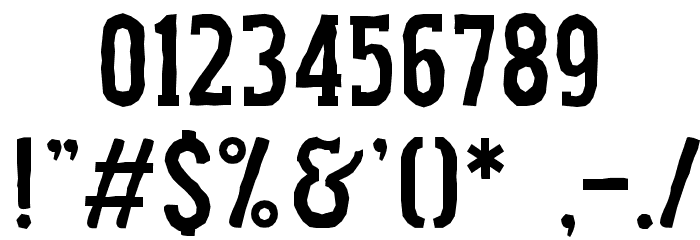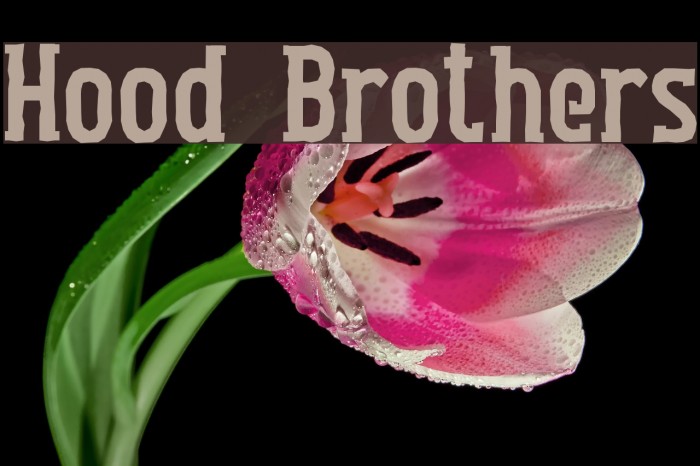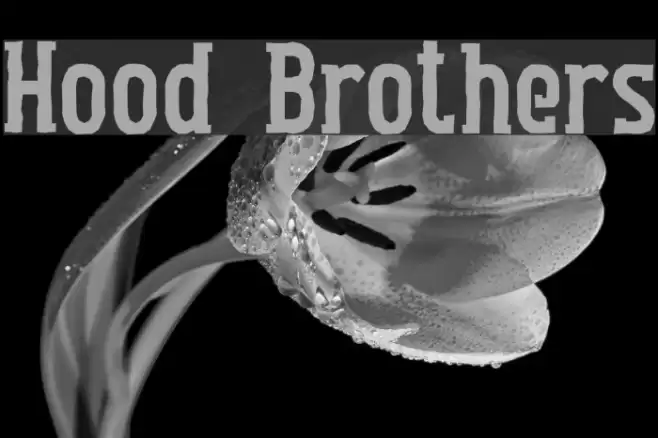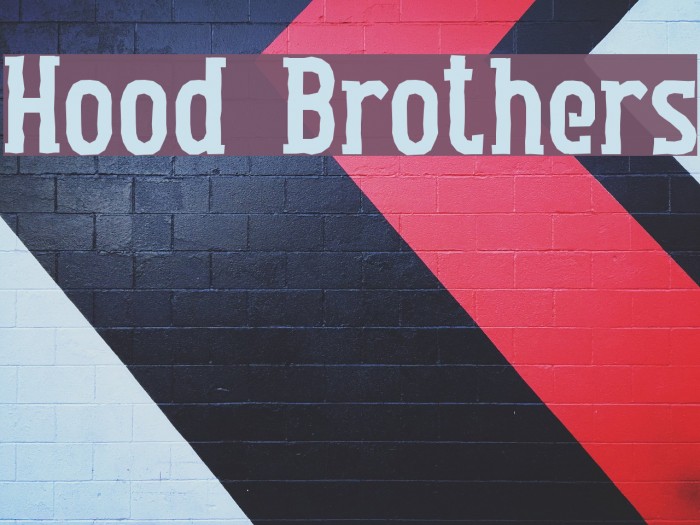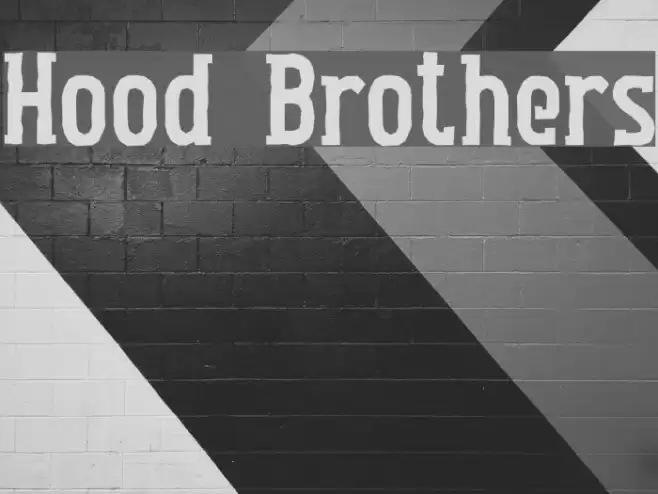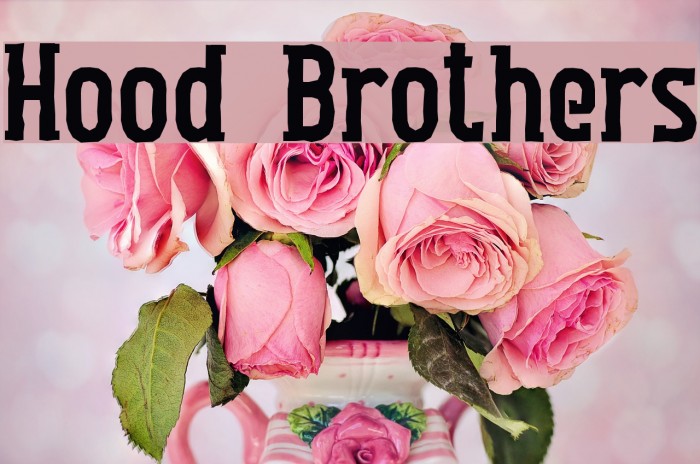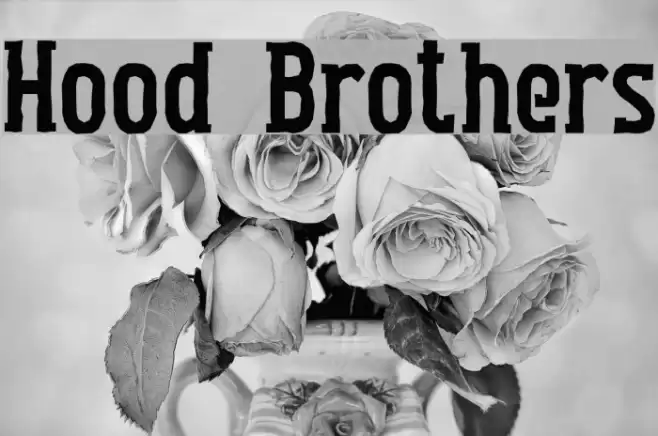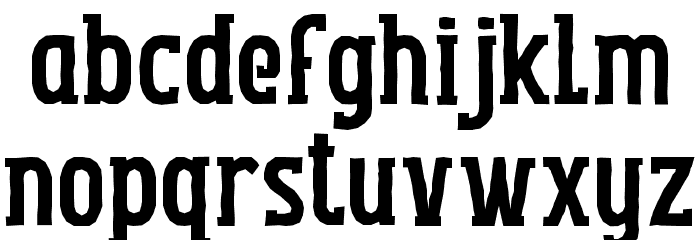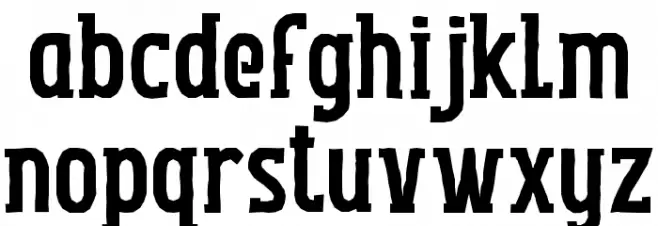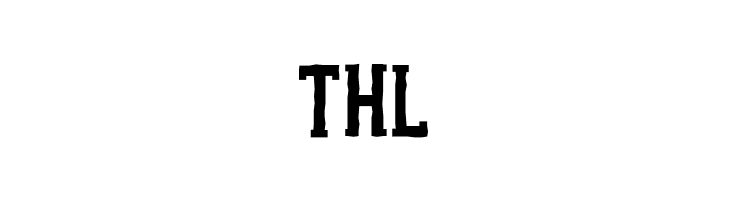
Hood Brothers Font
Hood Brothers Description
This font features a bold and rugged style with a strong presence, characterized by its thick strokes and slightly condensed letterforms. The uppercase letters are particularly striking, with a blocky and robust appearance that conveys strength and stability. The lowercase letters maintain a consistent style, offering a harmonious blend with the uppercase set. Numbers and special characters are designed to match the overall aesthetic, ensuring uniformity across all text. The font's design is reminiscent of vintage signage, making it ideal for projects that require a touch of nostalgia or a bold statement.
| Width | Condensed |
| Overall Style | Vintage |
| Use Case | Headlines, Logos, Signage |
| Proposed Projects | Ideal for vintage-themed posters, branding, signage, and headlines. |